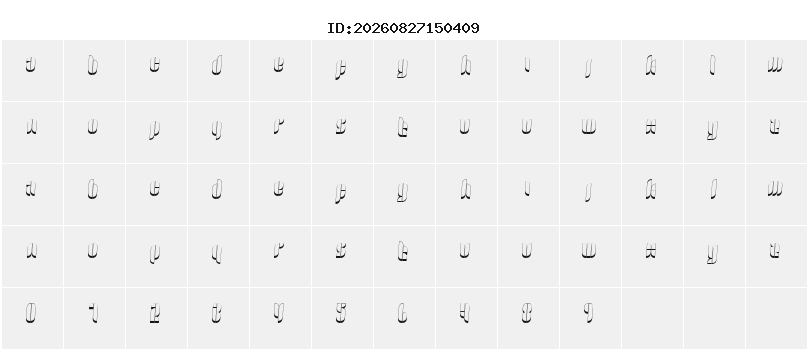
10.10 Preview
About 10.10.ttf
10.10.ttf is a modern, elegant sans-serif font designed for ultimate readability and visual harmony. Perfect for branding, headlines, web design, and print materials.